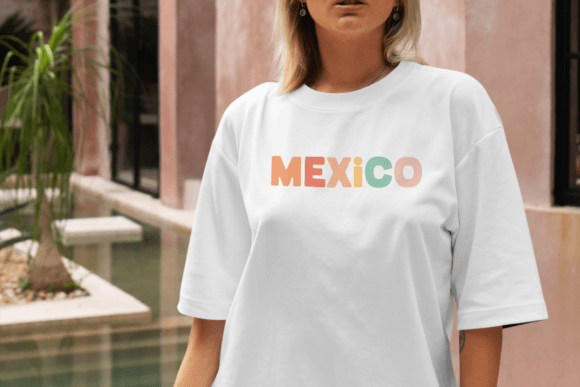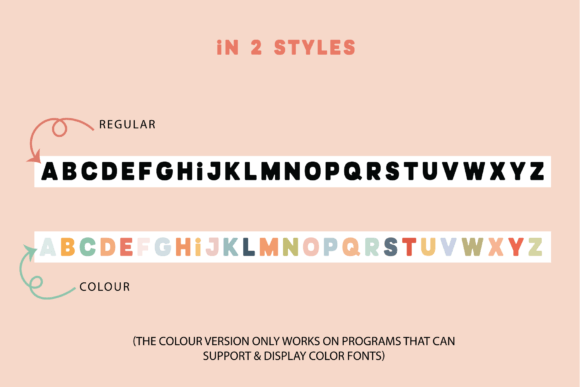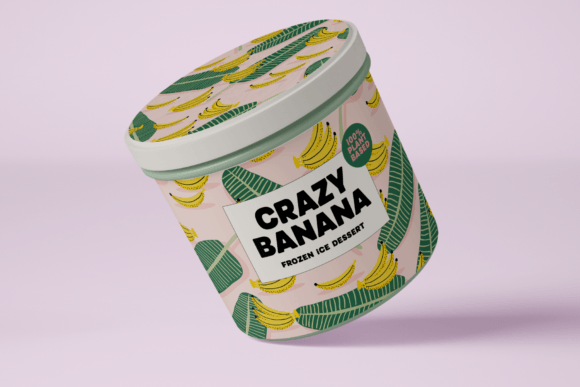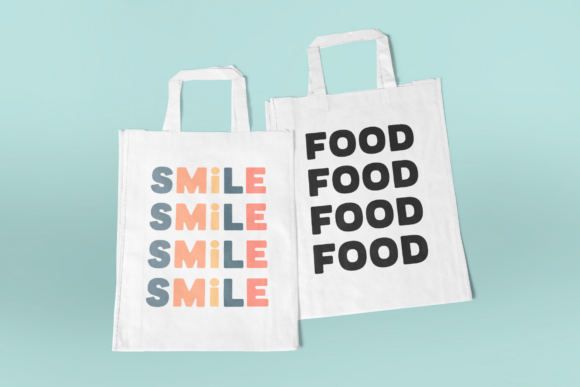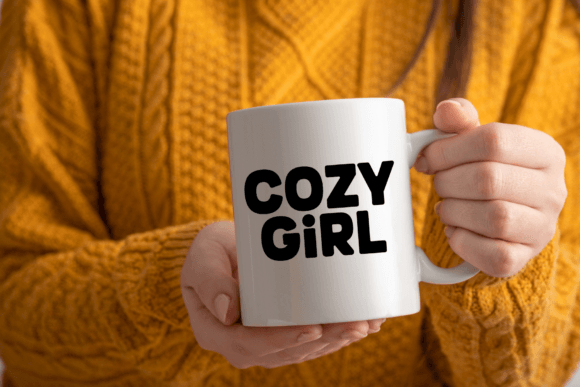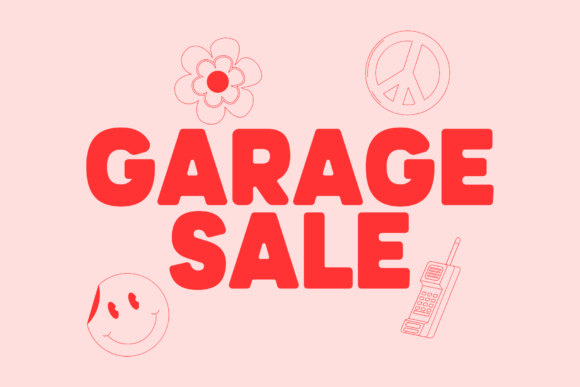
Introducing Flower Shop Font: The Perfect Blend of Modern and Classic Elements
Are you a designer or crafter looking for a font that exudes elegance and sophistication? Look no further than the Flower Shop font. This stunning font is a perfect blend of modern and classic elements, making it ideal for any design project that demands a contemporary yet timeless aesthetic.
What Makes Flower Shop Font So Special?
Flower Shop font is a masterful combination of bold and clean lines, which commands attention while maintaining an elegant sophistication. Its unique curves and angles add a touch of flair and character, setting it apart from other fonts. Whether you’re designing a logo, creating a brand identity, or crafting a beautiful wedding invitation, Flower Shop font is the perfect choice.
Key Features of Flower Shop Font
- Bold and Clean Lines: The font’s bold and clean lines make it perfect for headlines, titles, and any design element that needs to stand out.
- Elegant Sophistication: The font’s elegant curves and angles add a touch of sophistication, making it ideal for designs that require a high level of refinement.
- Unique Character: The font’s unique curves and angles add a touch of flair and character, making it perfect for designs that need to stand out from the crowd.
- Versatile: Flower Shop font is versatile and can be used for a wide range of design projects, from logos and branding to wedding invitations and more.
Why Designers and Crafters Love Flower Shop Font
Designers and crafters love Flower Shop font for its versatility and elegance. It’s perfect for creating beautiful designs that require a high level of sophistication. Whether you’re designing a logo, creating a brand identity, or crafting a beautiful wedding invitation, Flower Shop font is the perfect choice.
How to Use Flower Shop Font in Your Designs
Using Flower Shop font in your designs is easy. Here are a few tips to get you started:
- Pair it with a Simple Background: Pair Flower Shop font with a simple background to make it stand out.
- Use it for Headlines and Titles: Use Flower Shop font for headlines and titles to add a touch of elegance and sophistication.
- Experiment with Colors: Experiment with different colors to find the perfect combination that works with your design.
Tips for Getting the Most Out of Flower Shop Font
Here are a few tips for getting the most out of Flower Shop font:
- Use it Consistently: Use Flower Shop font consistently throughout your design to create a cohesive look.
- Experiment with Different Sizes: Experiment with different sizes to find the perfect size for your design.
- Pair it with Other Fonts: Pair Flower Shop font with other fonts to create a unique and interesting design.
In conclusion, Flower Shop font is a stunning font that is perfect for designers and crafters who want to add a touch of elegance and sophistication to their designs. Its unique blend of modern and classic elements makes it ideal for any design project that demands a contemporary yet timeless aesthetic. With its bold and clean lines, elegant curves and angles, and versatile nature, Flower Shop font is sure to become a favorite in your design toolkit.
Flower Shop font is a beautiful font that is sure to elevate your designs to the next level. Its unique blend of modern and classic elements makes it perfect for any design project that demands a contemporary yet timeless aesthetic. Whether you’re a designer or crafter, Flower Shop font is a must-have in your design toolkit.